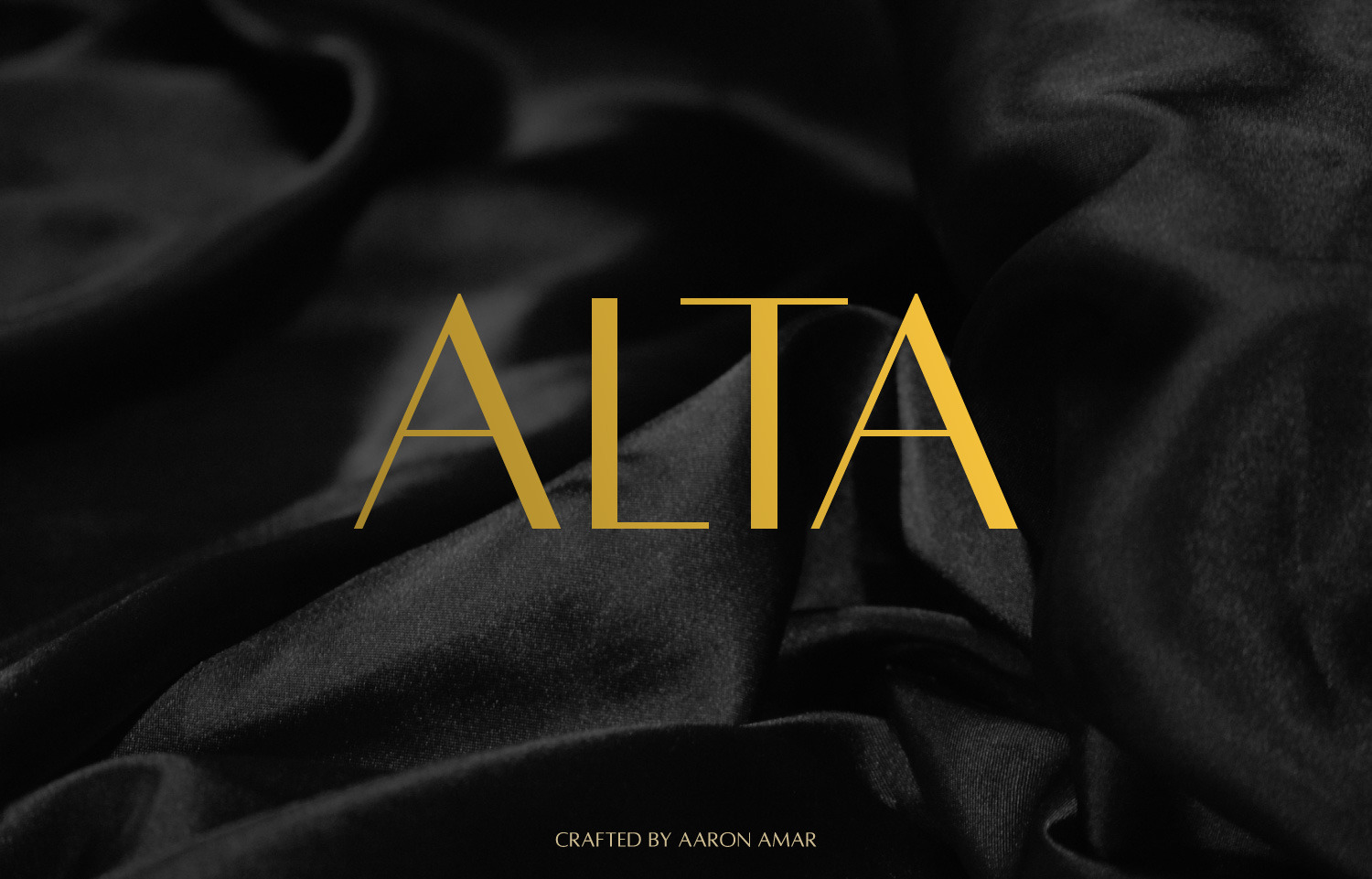
Alta Typeface — A Sans-Serif All-Caps Display Humanist Typeface based on the aesthetics of Optima Typeface, originally created by Hermann Zapf.
- Light
- Caption